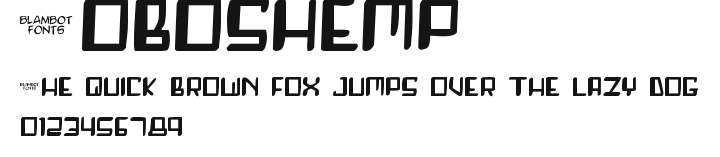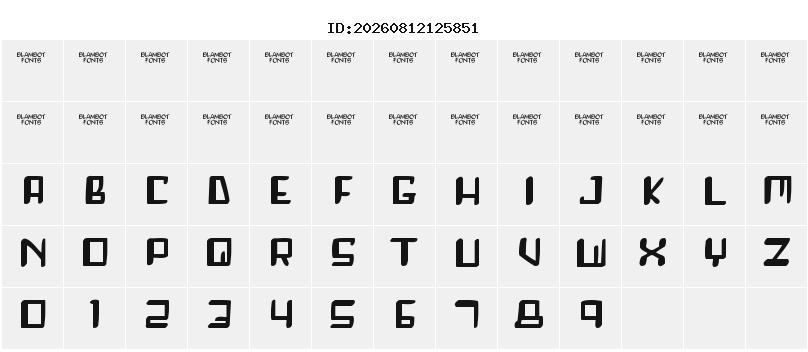
Roboshemp Preview
• Font Name: Roboshemp
• Font ID: Roboshemp
• Full Font Name: Roboshemp
About Roboshemp.ttf
Roboshemp.ttf is a modern, elegant sans-serif font designed for ultimate readability and visual harmony. Perfect for branding, headlines, web design, and print materials.